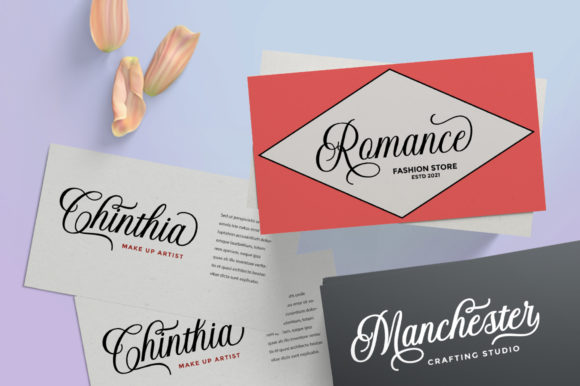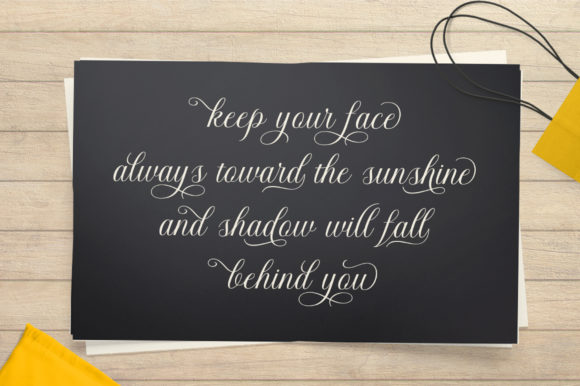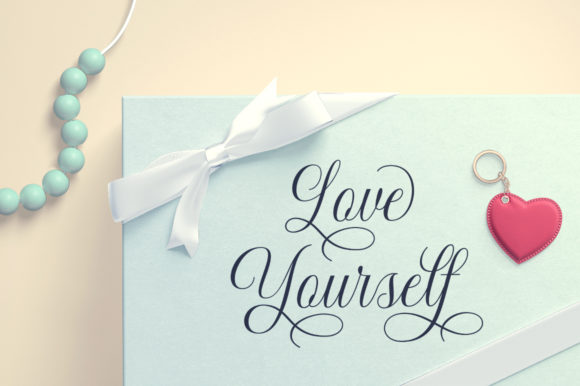
The Elusive Font: A Love Letter to Grethania
I’ll never forget the frustration of working on a project, pouring my heart and soul into every detail, only to hit a roadblock: finding the perfect font. My client wanted something elegant, yet modern; something that would make their brand stand out. I scoured the internet, tried countless fonts, but nothing seemed quite right. That was until I stumbled upon Grethania.
Grethania is an elegant and flowing handwritten font that has become a staple in my design toolkit. It’s PUA encoded, which means accessing all the glyphs and swashes is a breeze! With its varying baseline, smooth lines, gorgeous glyphs, and stunning alternates, Grethania maintains its classy calligraphic influences while feeling contemporary and fresh.
What I Love About Grethania ✨
- ✅ Elegant and flowing handwritten design
- ✅ Varying baseline and smooth lines for a natural look
- ✅ Stunning alternates and glyphs to keep your designs fresh
- ✅ Perfect for projects that require a touch of sophistication
- ⚠️ Some users may find the font too ornate for certain projects
- ⚠️ Limited use on very small font sizes due to intricate details
The Story Behind Grethania: Designer Inspiration
Grethania’s creator was inspired by the art of calligraphy and the beauty of handwritten letters. With a passion for typography, they set out to create a font that would capture the essence of elegance and sophistication. The result is Grethania, a font that is both timeless and modern.
Q: Is Grethania suitable for body text?
A: While Grethania is an elegant font, it’s best suited for headings and titles due to its intricate details. For body text, a simpler font may be more readable.